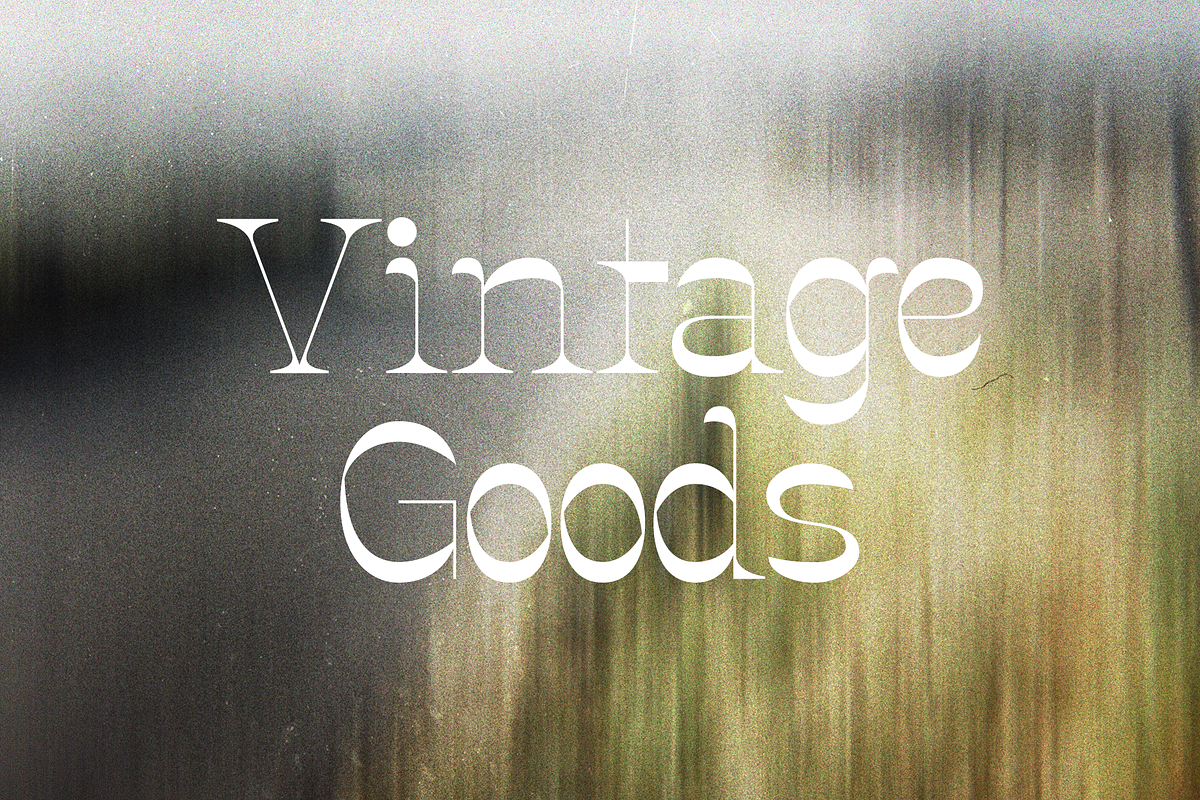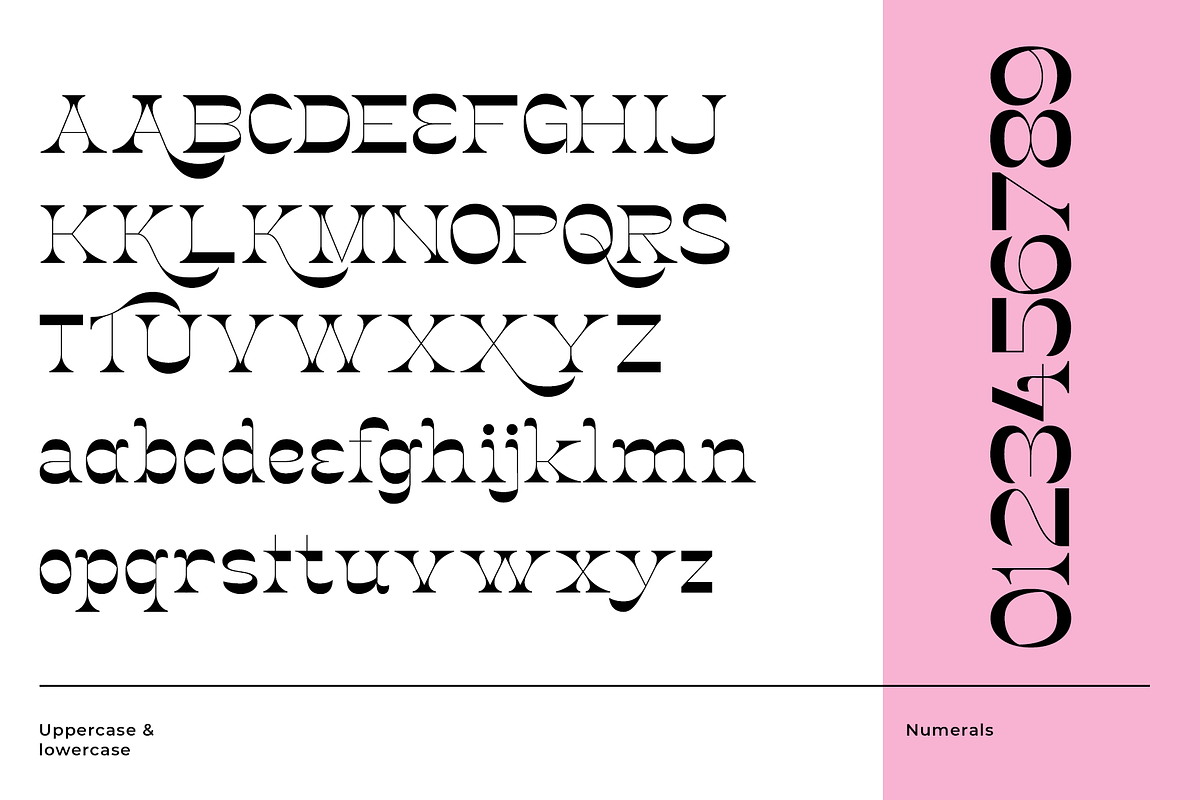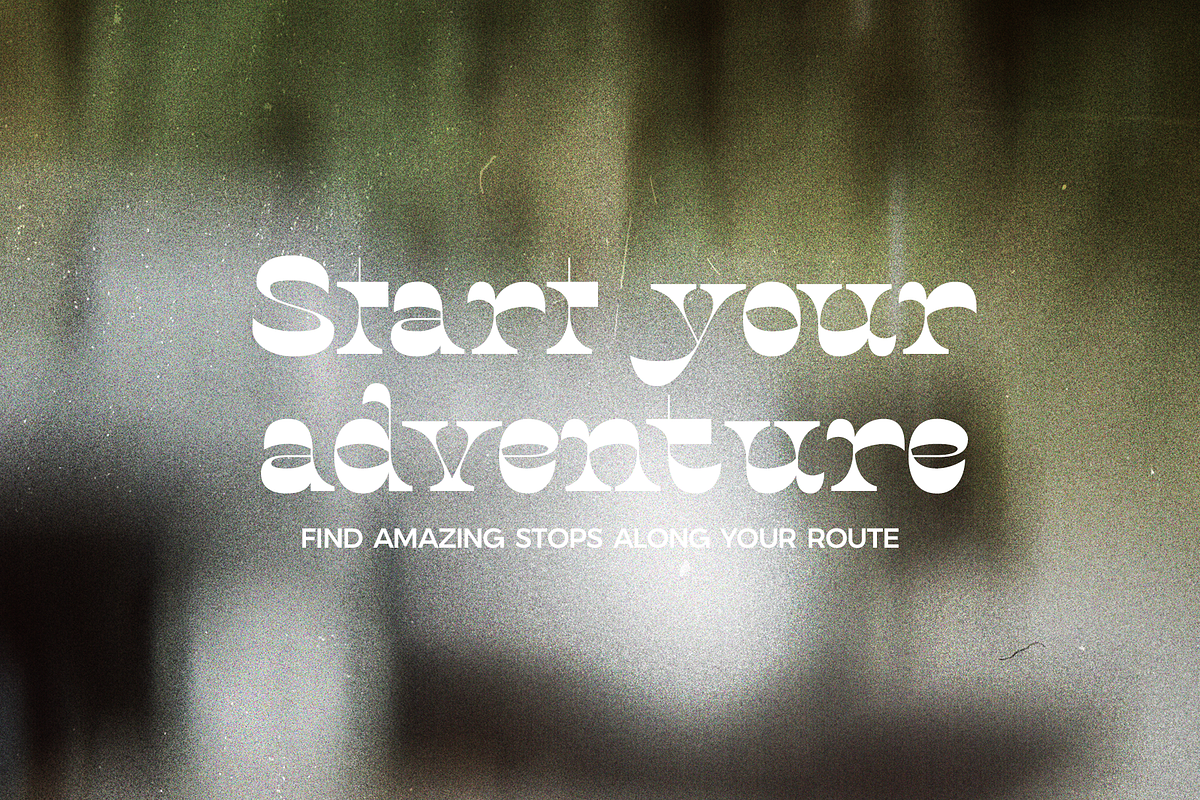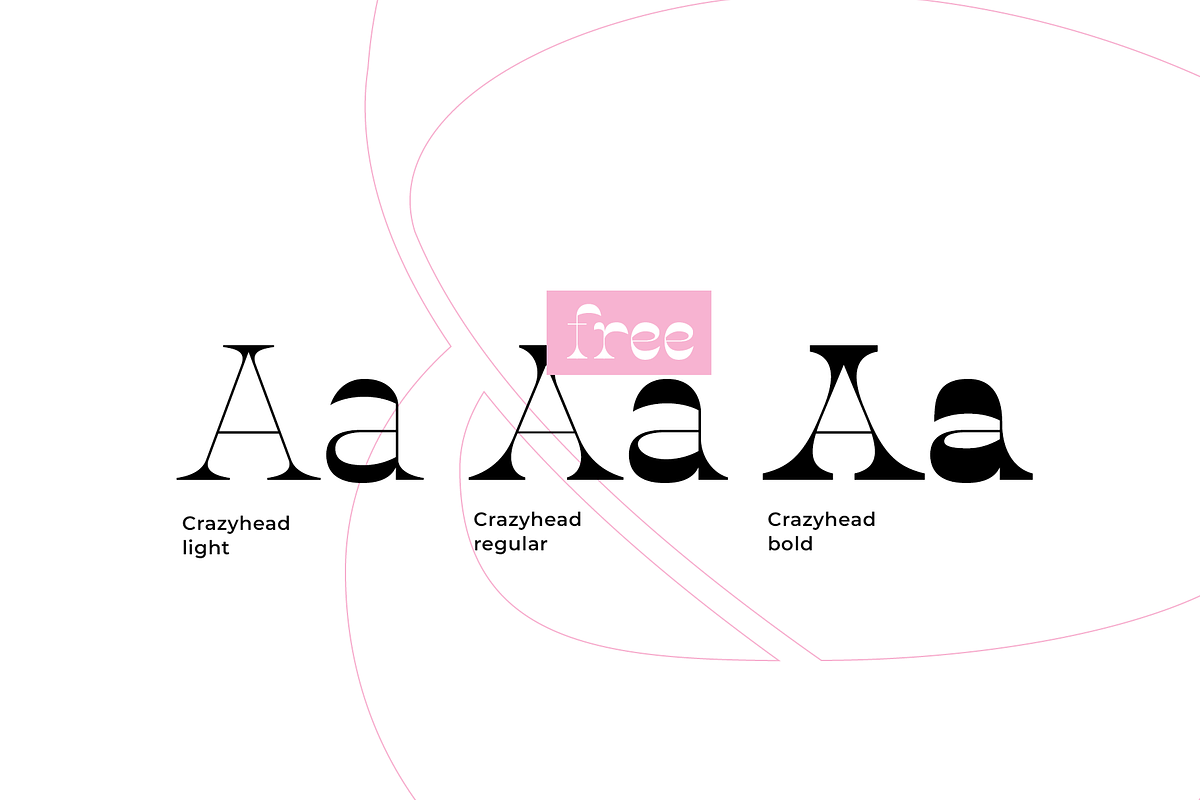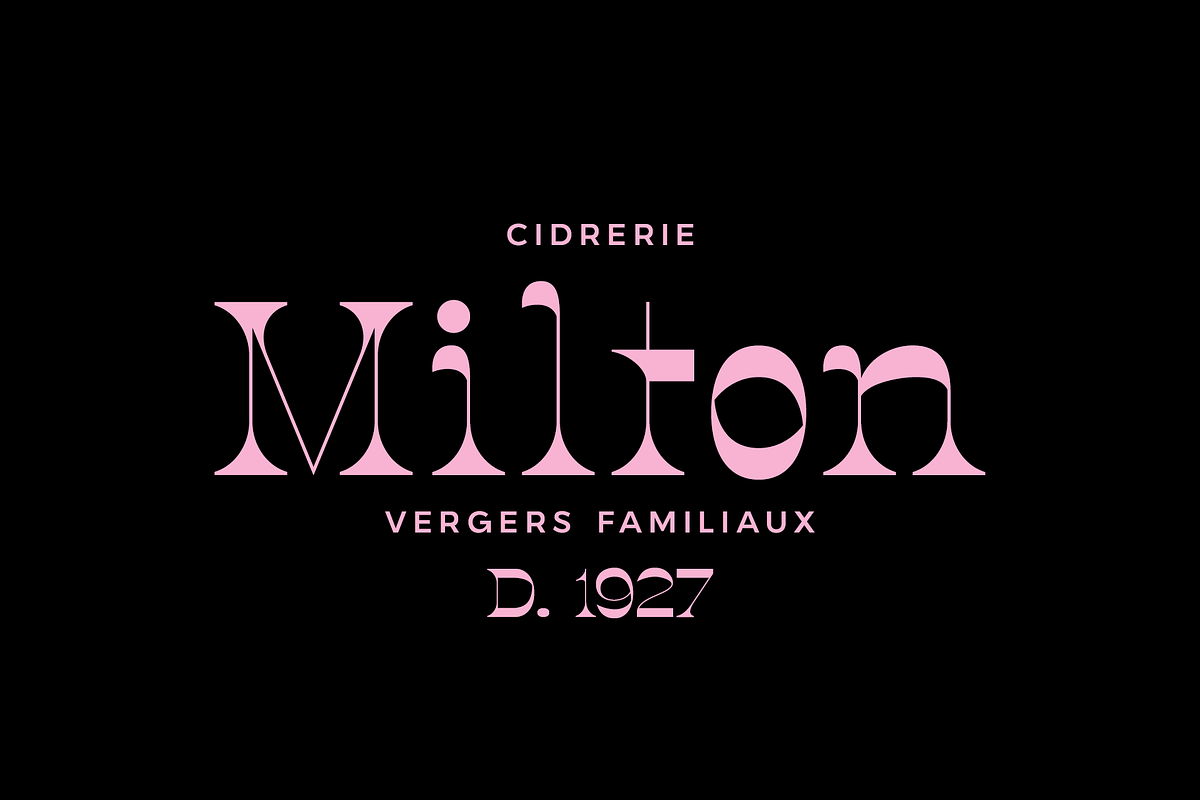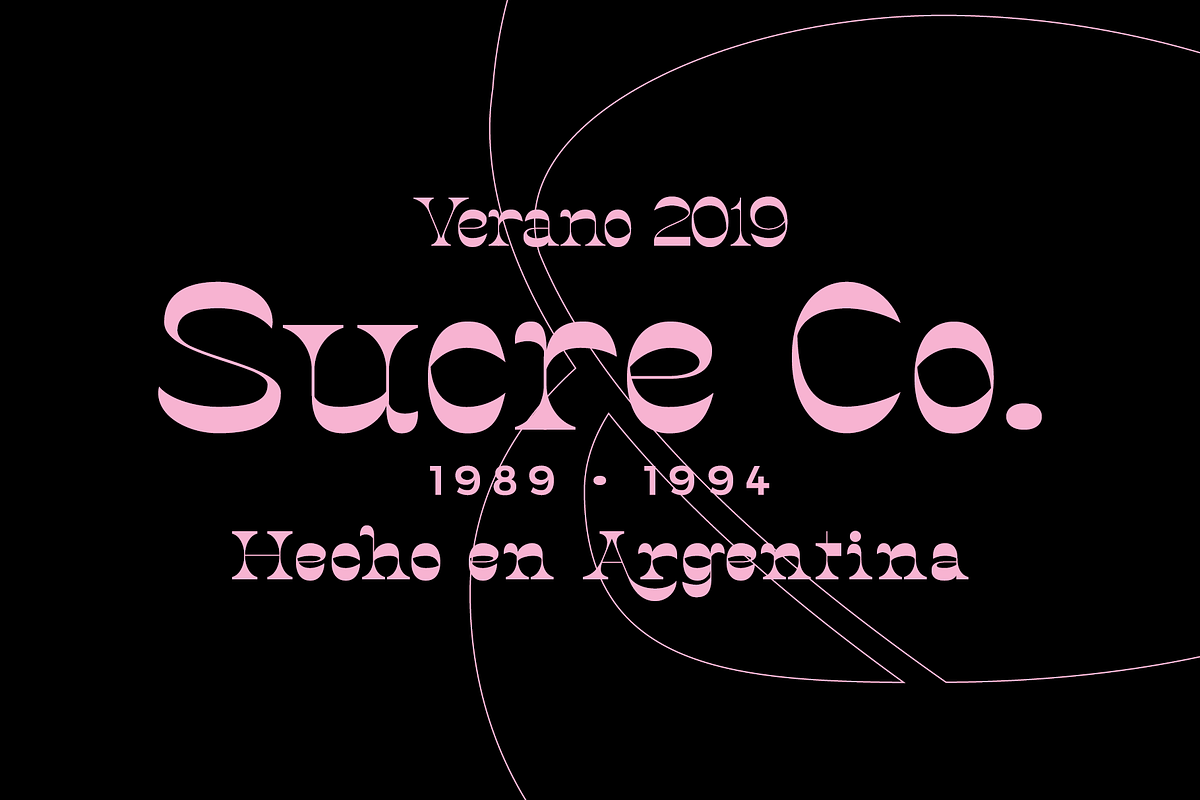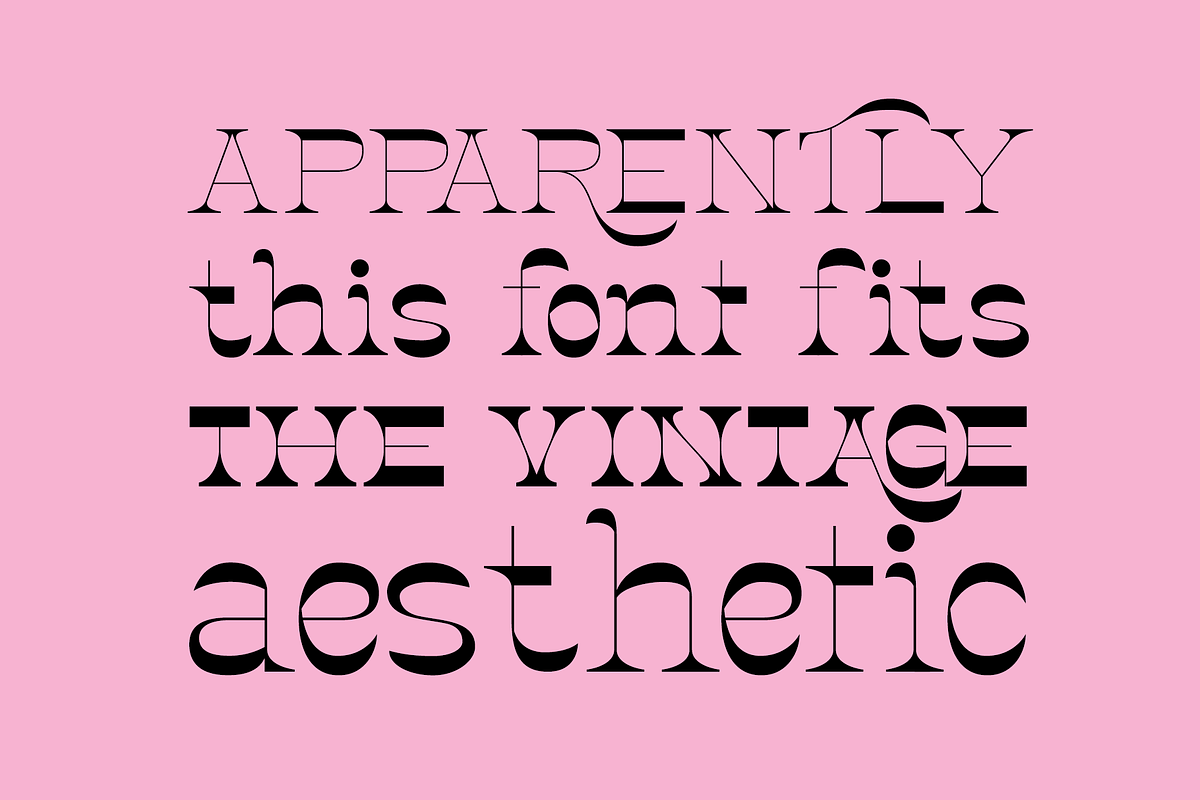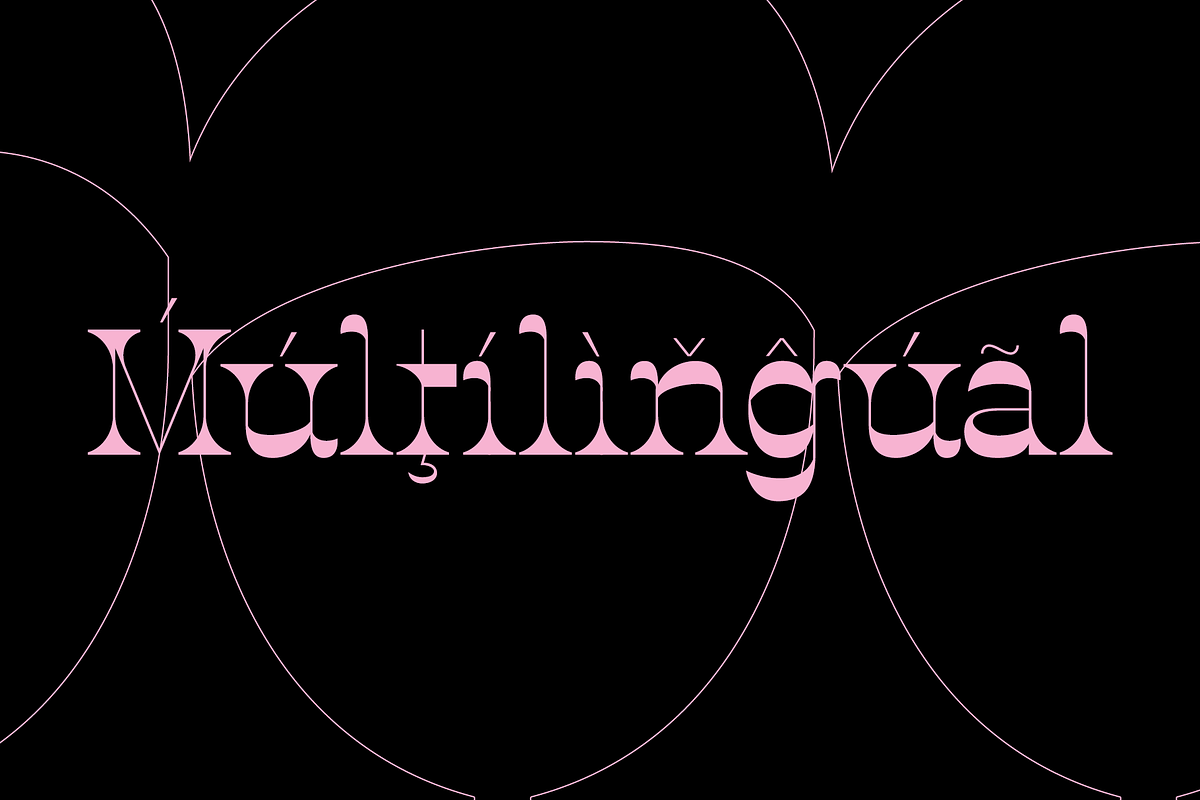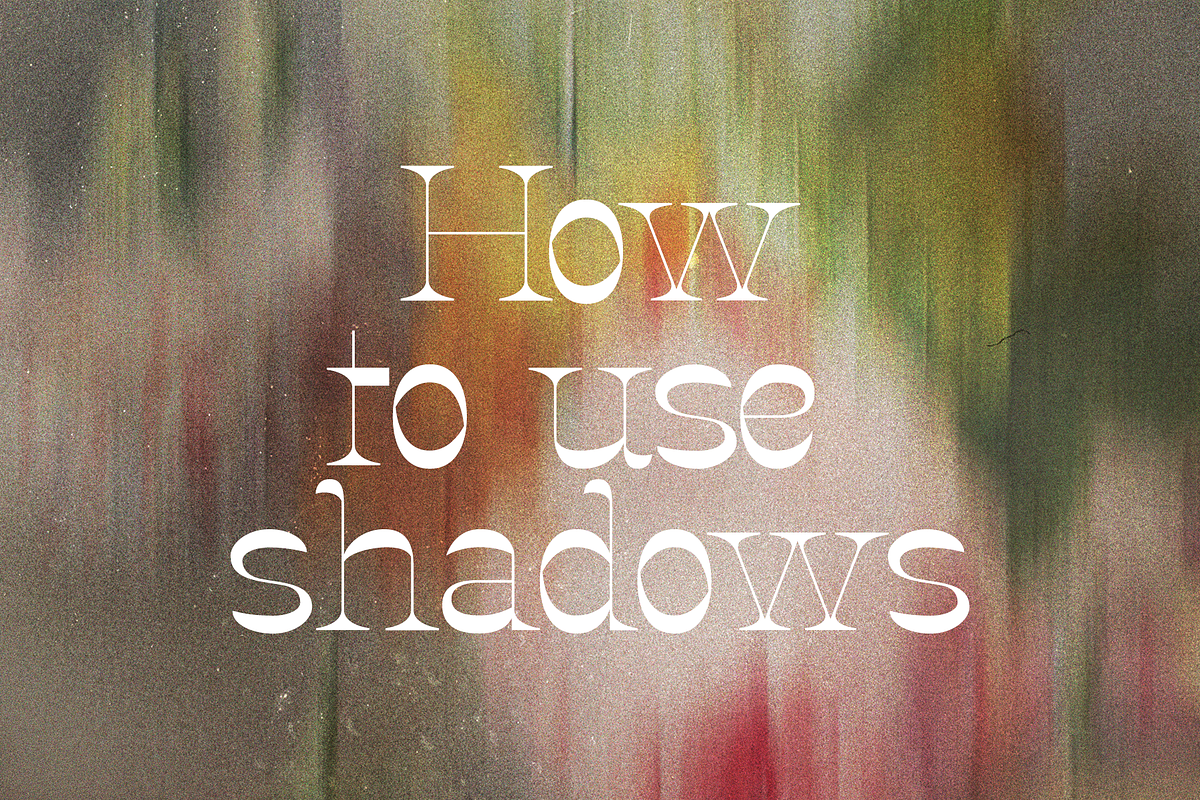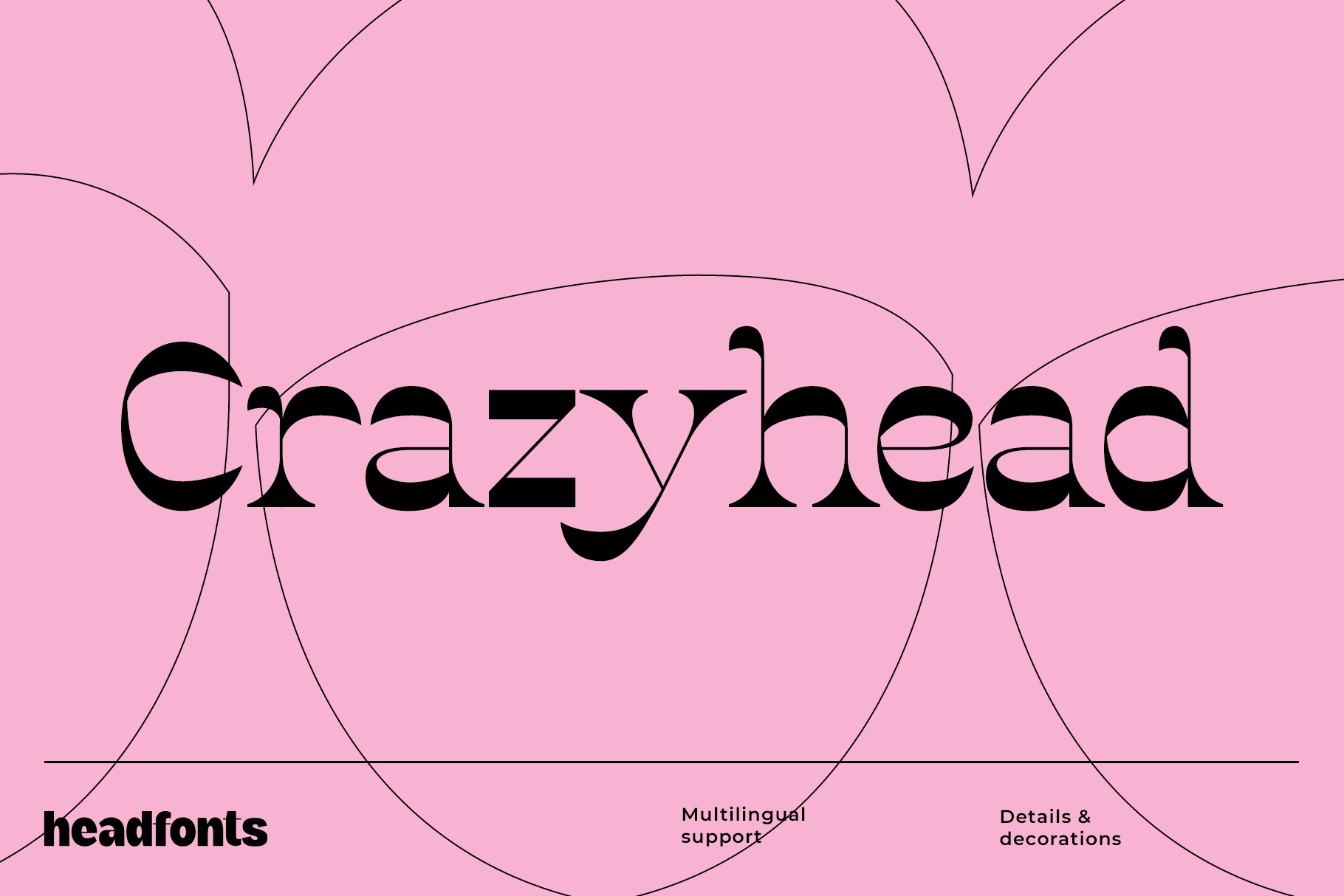
Crazyhead Display Font Family
Crazyhead is the newest display font in the Headfonts family. This wild-looking typeface has high contrasting strokes, distinctive personality, exaggerated serifs, and beautiful curves while retaining the legibility necessary for its purpose. Crazyhead is an inverted contrast font, departing from what is conventional, into a wild and bold type that breathes freely. This charismatic font comes with three weights, uppercase, and lower uppercase characters, and extensive Latin script support with numerals symbols and alternative glyphs. Furthermore, the regular version is free for you to try it. This font is perfect for any urban, vintage, or fashion-related designs, but it can also be used for small articles or occasional text. Get Crazyhead today and go wild!
CRAZYHEAD Light
CRAZYHEAD Bold
Extensive Latin script language support
Upper and lower uppercase font